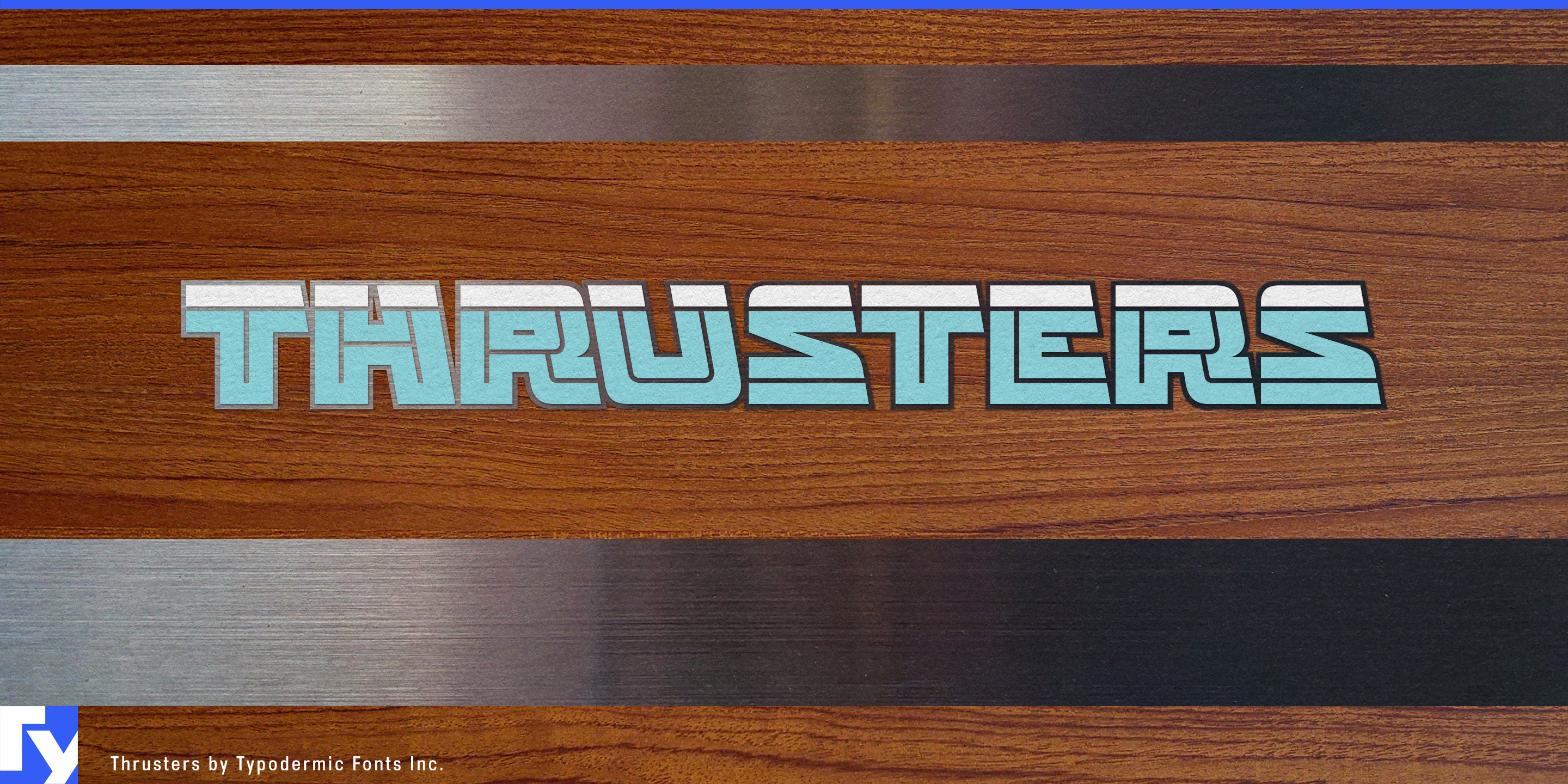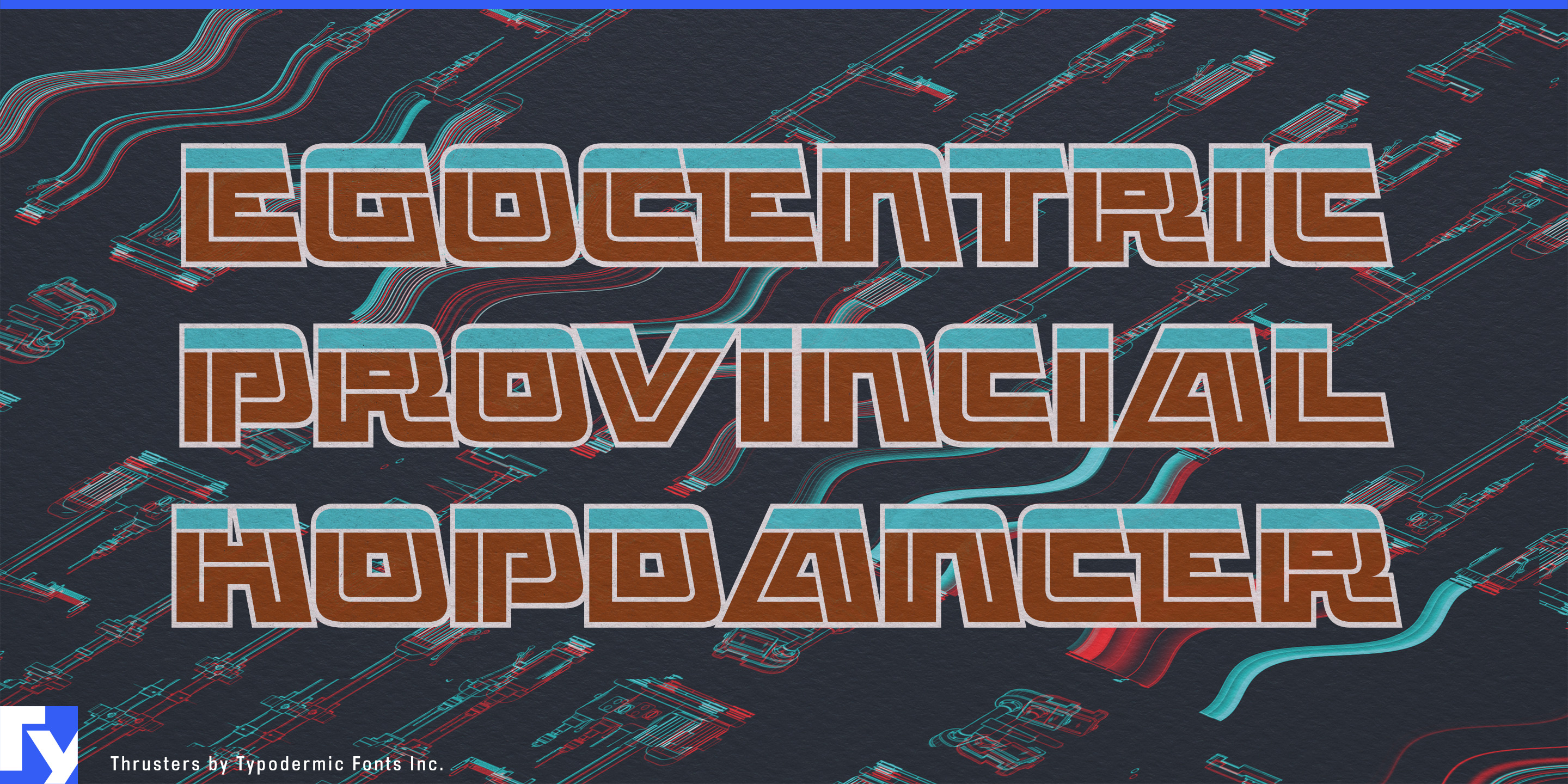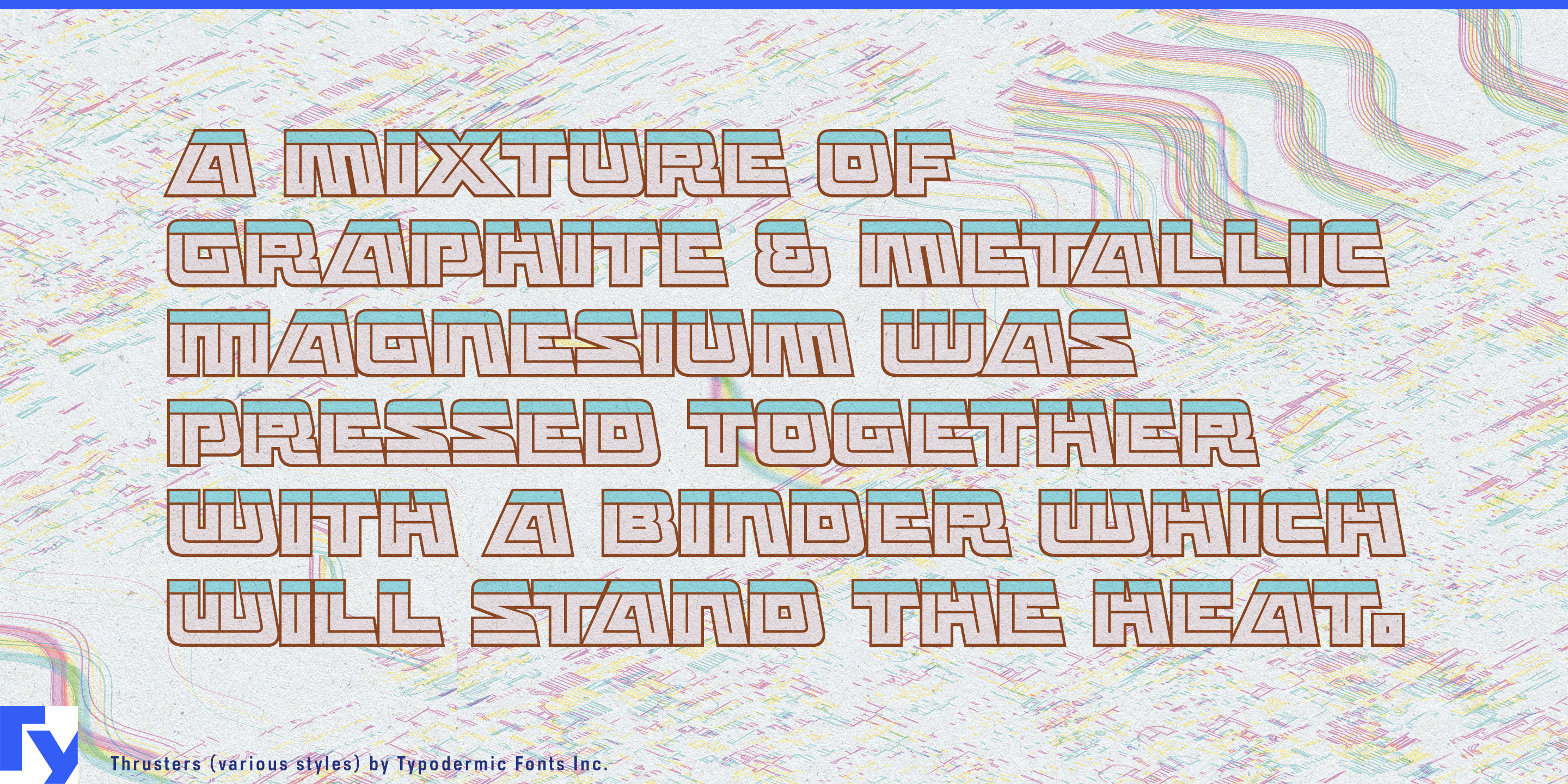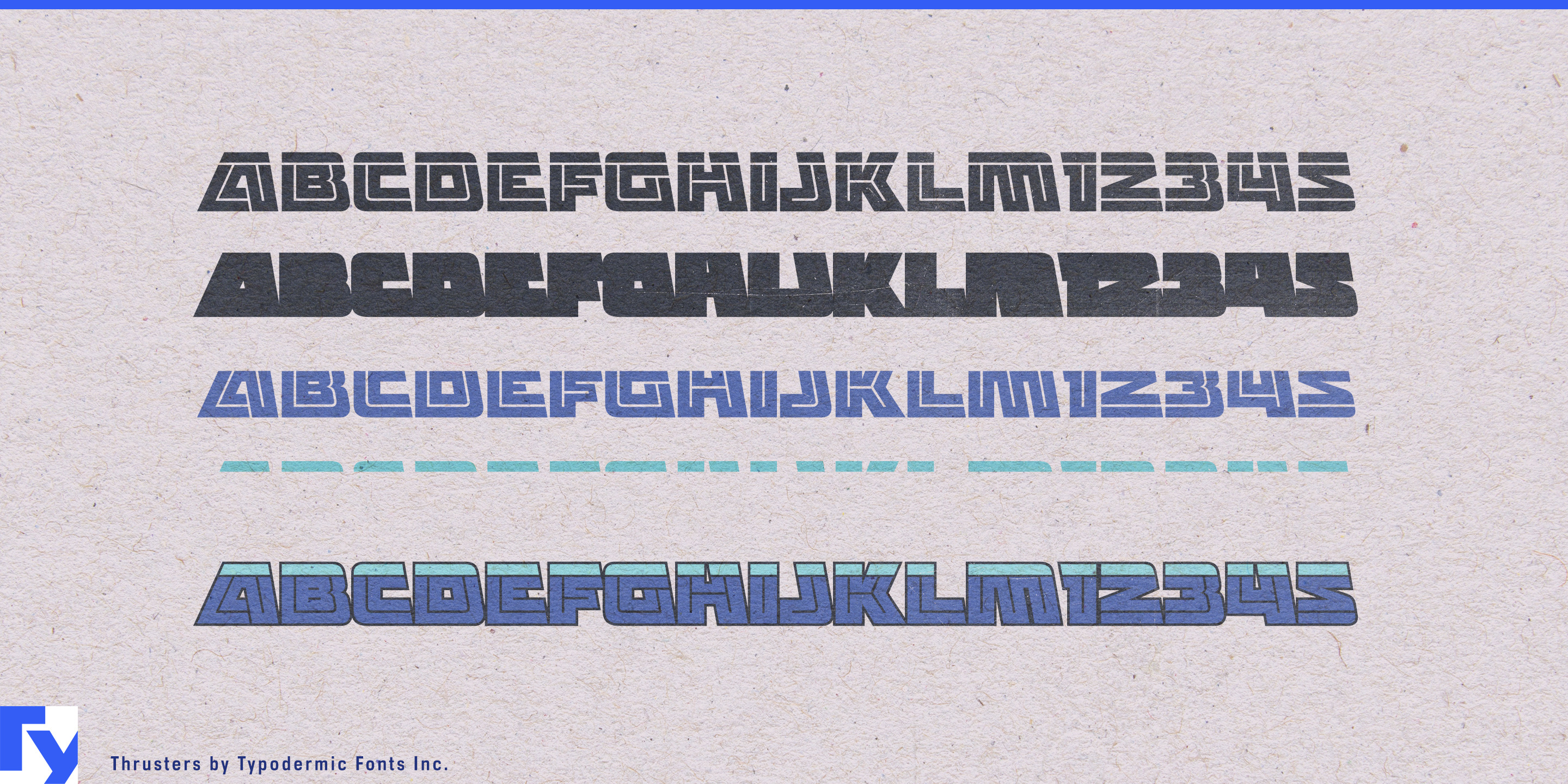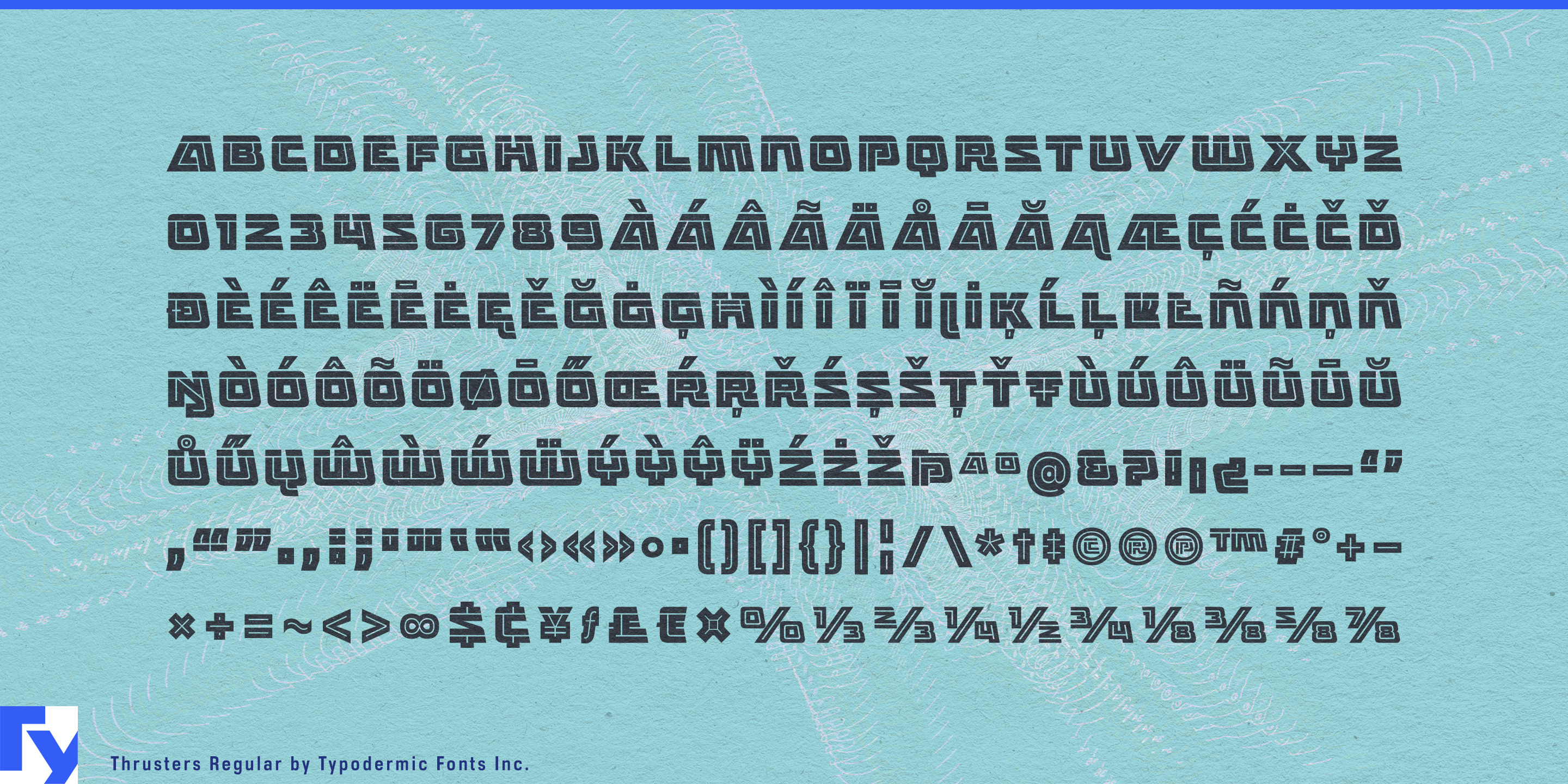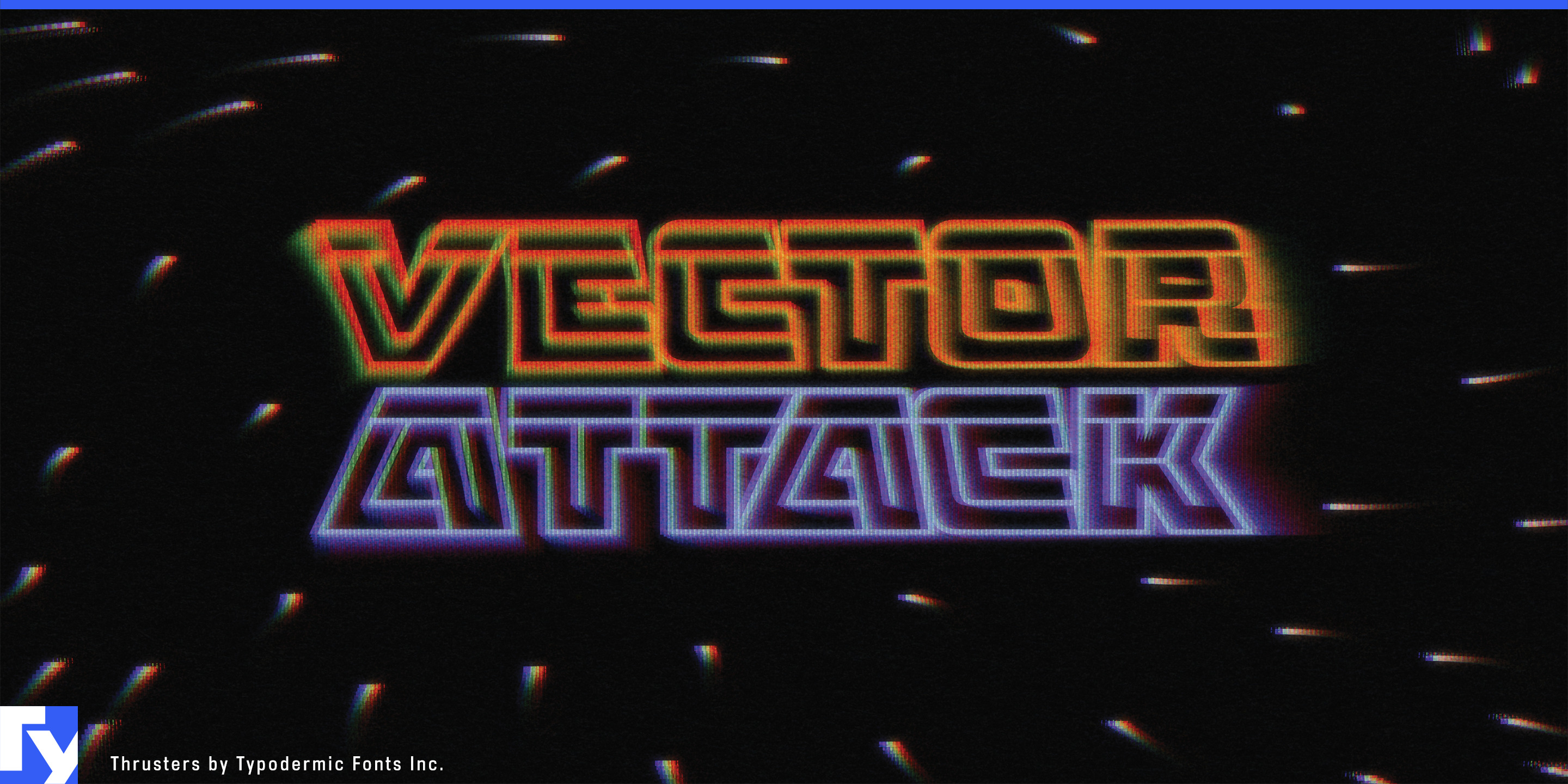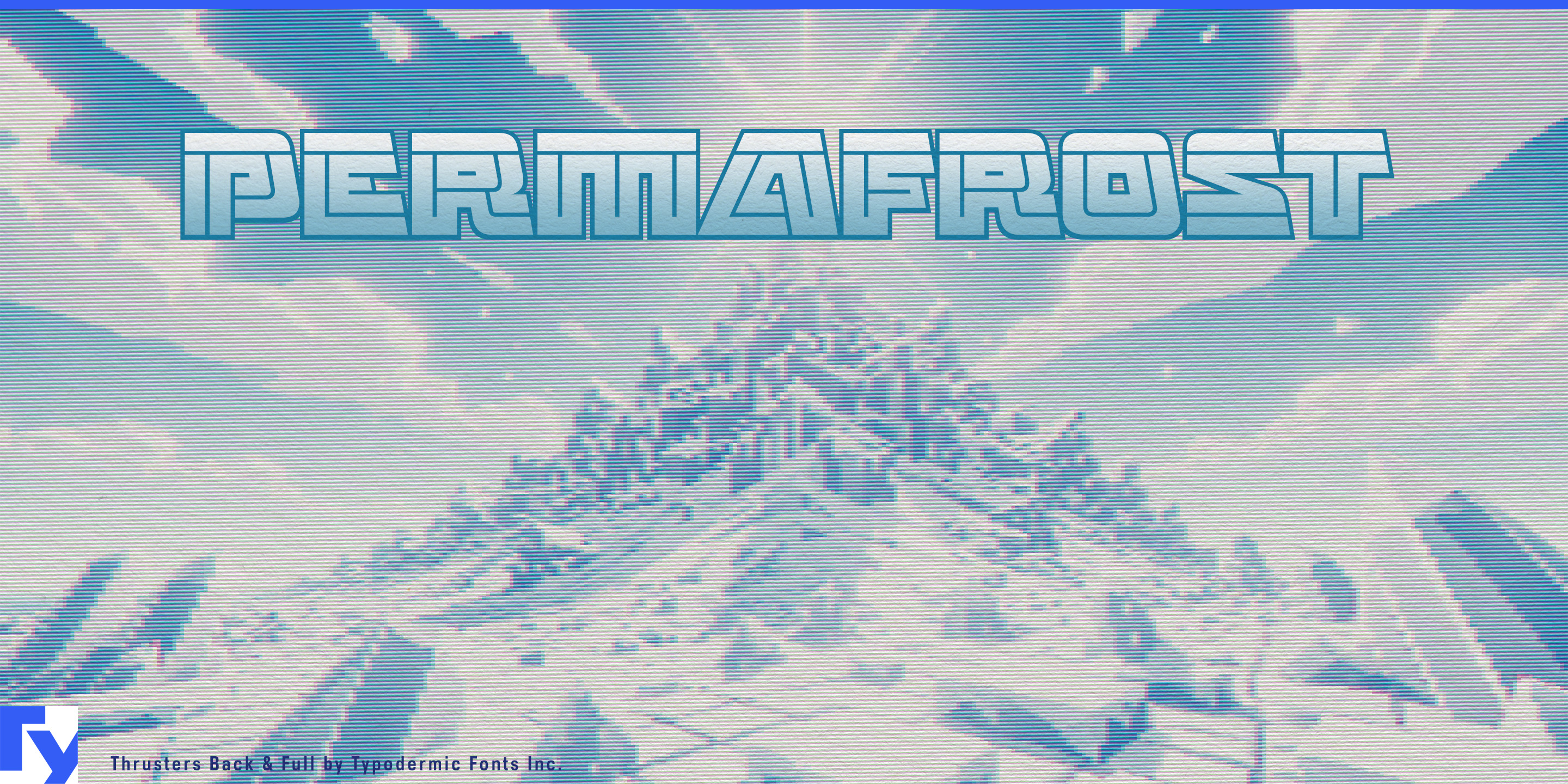
Thrusters
Some display faces sit comfortably inside a layout. Thrusters takes over a piece of it. Its angular strokes, horizontal divisions and routed internal shapes turn short words into decals, emblems and machine graphics rather than ordinary lines of type.
Four aligned styles can be stacked for multicolor treatments, letting the divisions inside the letters become actual color breaks. Model names can merge into stripes, panels and surrounding graphics instead of simply being placed on top of them.
RC racing gives that construction a natural home. Car bodies, racing quadcopters, slot cars, controller cases and hobby kits all use short model names and team identities as part of their liveries. Kart fairings, helmets, pit boards, personal watercraft, snowmobiles and small powerboats offer the same opportunity at larger scale, especially when the lettering participates in a stripe system.
Thrusters’ early-1980s arcade ancestry also suits cabinet marquees, reproduction side art, pinball titles and tournament graphics, where layered spot colors can become part of the period treatment. Model rocketry provides another particularly apt niche: rocket-kit names, launch-event graphics and body-tube decals give its long directional forms somewhere physical to go.
Thrusters works best with short language: a vehicle model, team name, arcade title or rocket-kit name. Pair it with a straightforward sans for specifications, schedules and instructions; let Thrusters handle the part that needs to become a graphic object of its own.